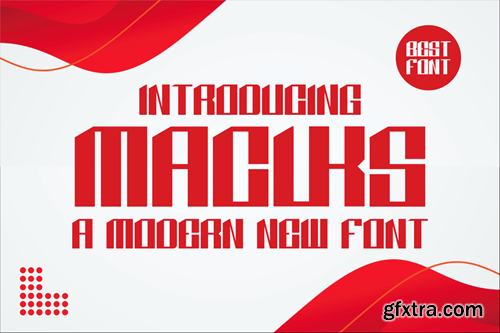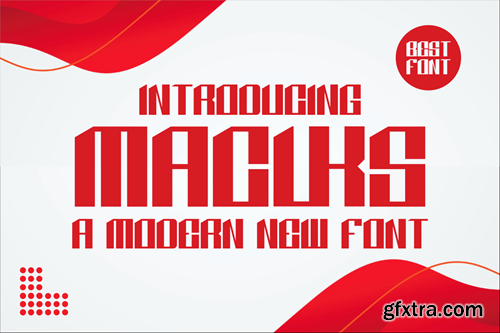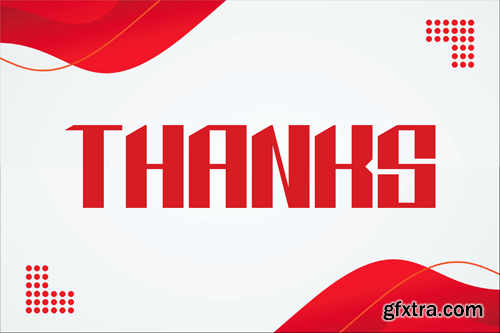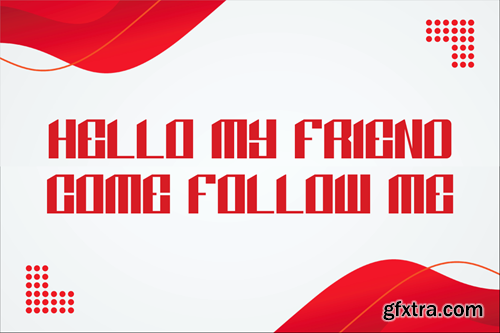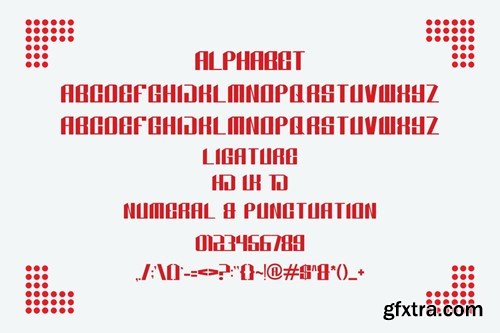
麦库斯 - 现代新字体 DCNGJWM
Macuks - Modern New Font
Proudly presenting our new product Macuks - Modern New Font is a modern and authentic font. Perfect for professional and product branding needs, this font is suitable for any branding project such as quotes, logos, blog headers, posters, ribbons, letters, invitations, stationery, etc... Designed to be versatile and flexible that can be used on a variety of projects and media. extraordinary in a variety of contexts. Available In file form for download Of course Ttf Uppercase If you have any questions, queries or concerns please do not hesitate to contact us directly. Appearance and cover image Not included in the download file, for presentation purposes only